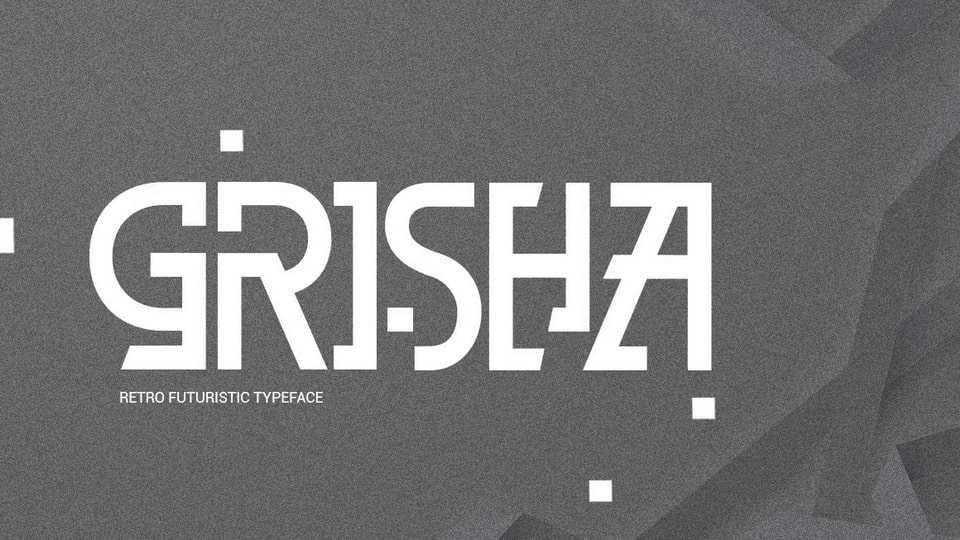
Download Grisha font, a retro modern futuristic typeface, each glyphs has an unique look. it come with bold condensed and tight kerning to show strong characteristic.